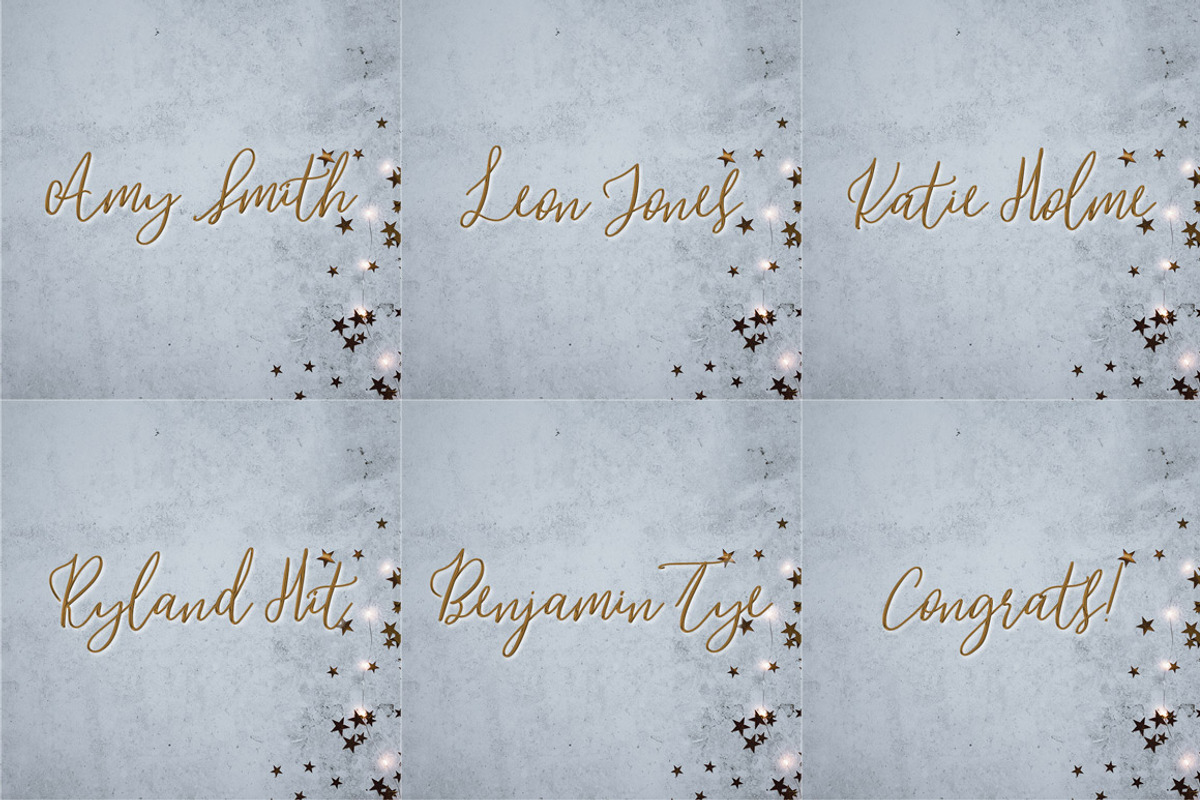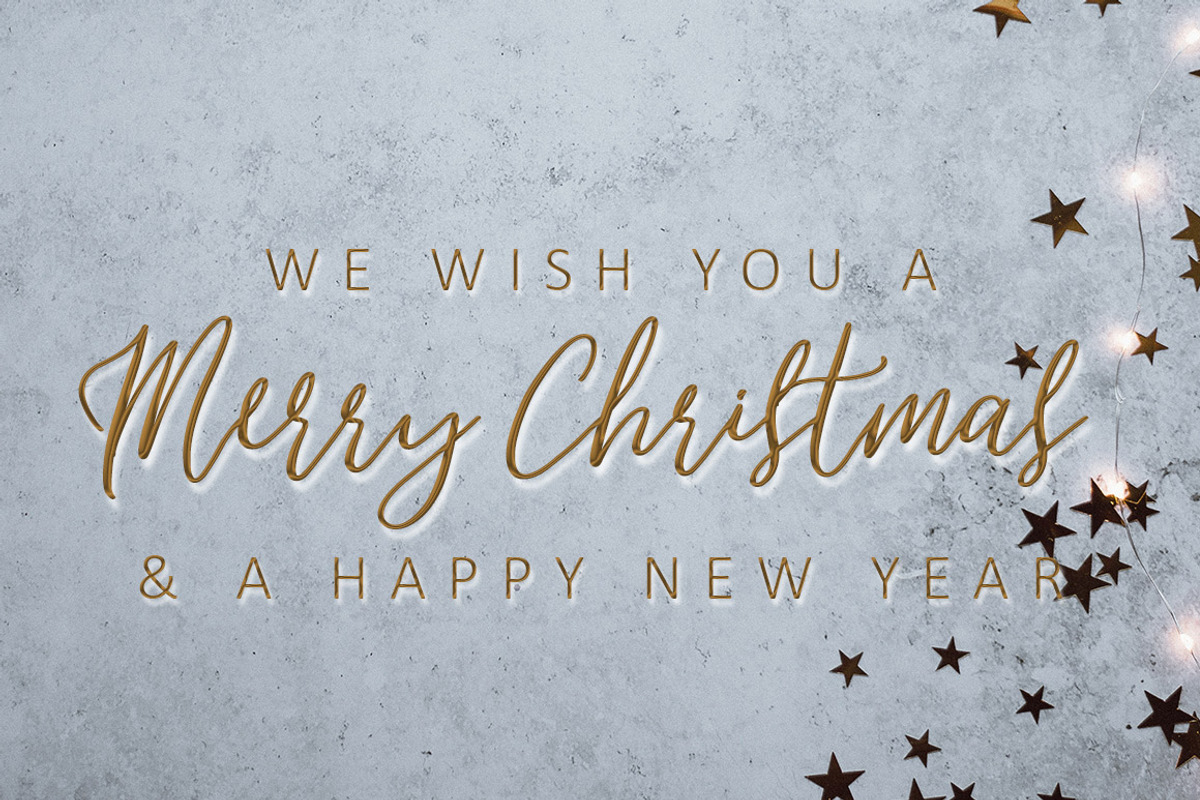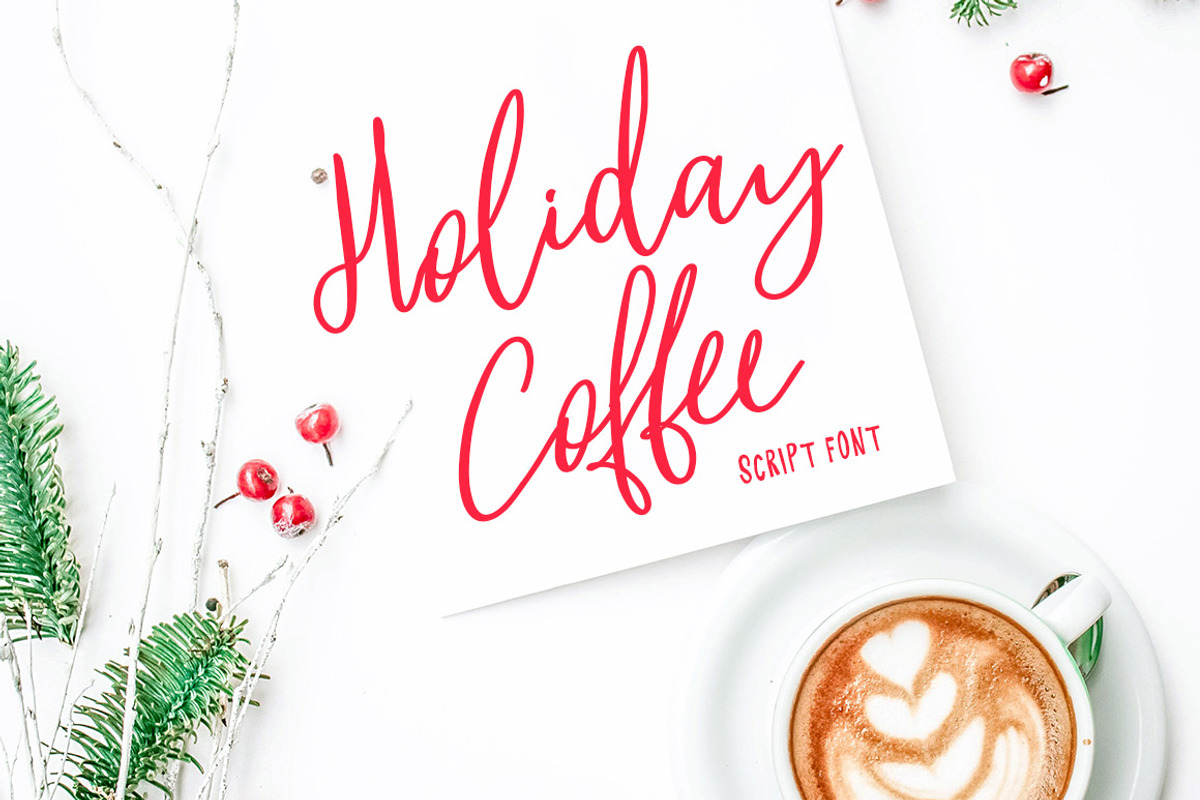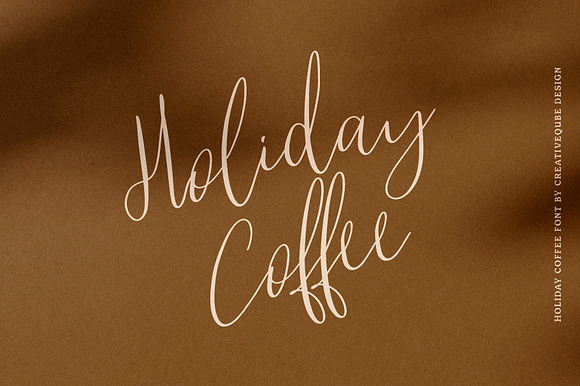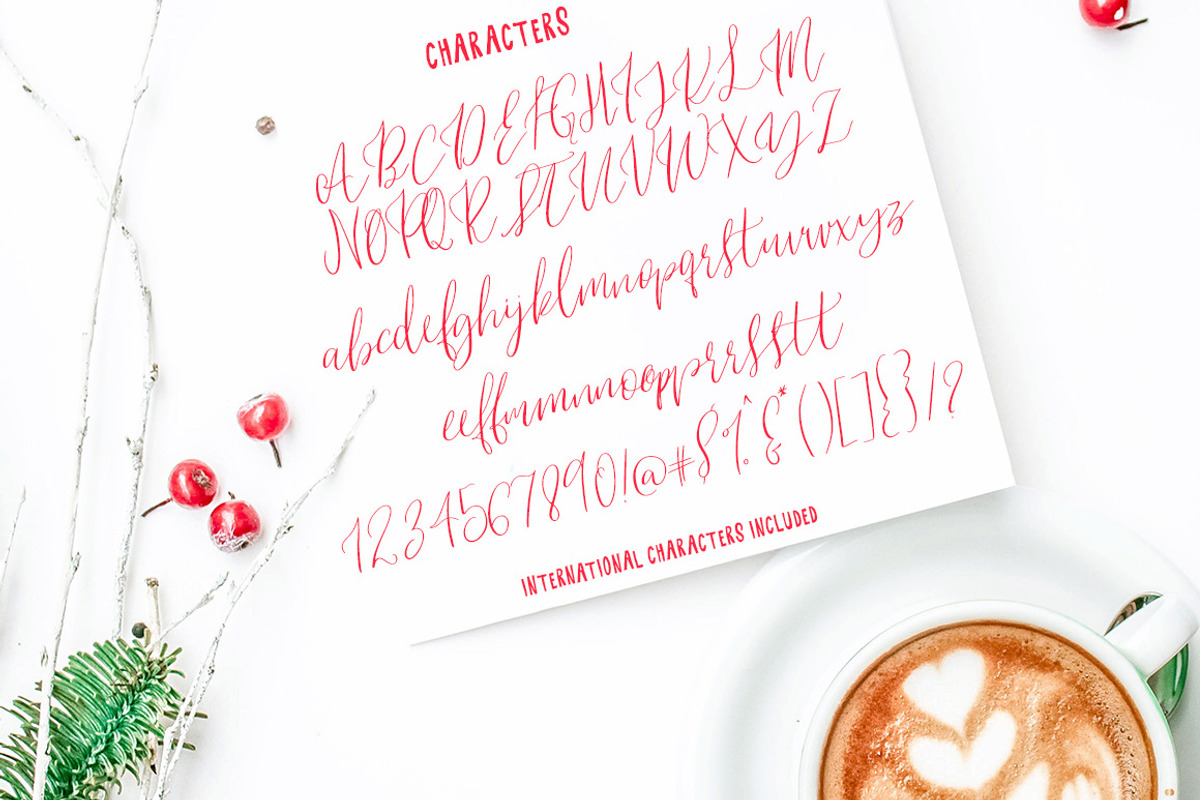
Holiday Coffee Script Font
Introducing Holiday Coffee Script font!
This is such a cute script font - and comes in regular, bold and slant. Double ligatures included.
- International characters included.
Why Holiday Coffee Script Font is worth a look
Holiday Coffee Script Font by Creativeqube Design fits naturally into Branding, posters, packaging, typography.